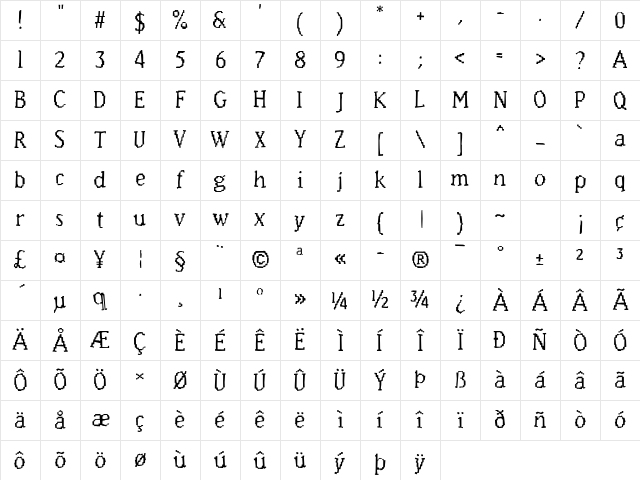
Murphy33 is a composed and adaptable typeface that performs quietly and consistently across a wide range of design contexts. Its slender proportions lend an understated elegance to any composition.